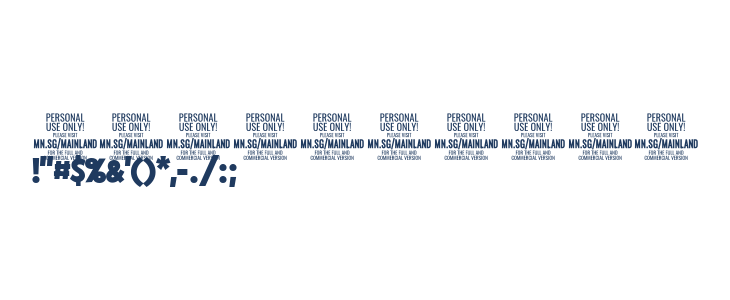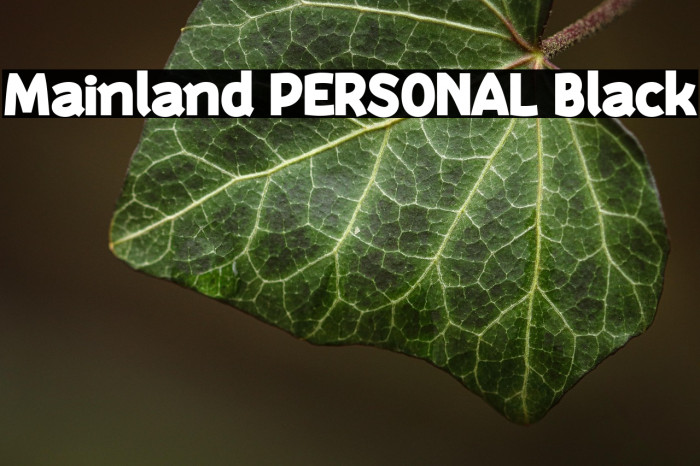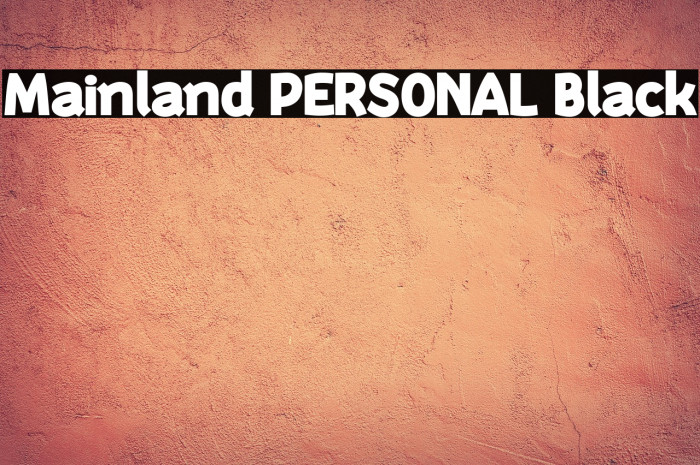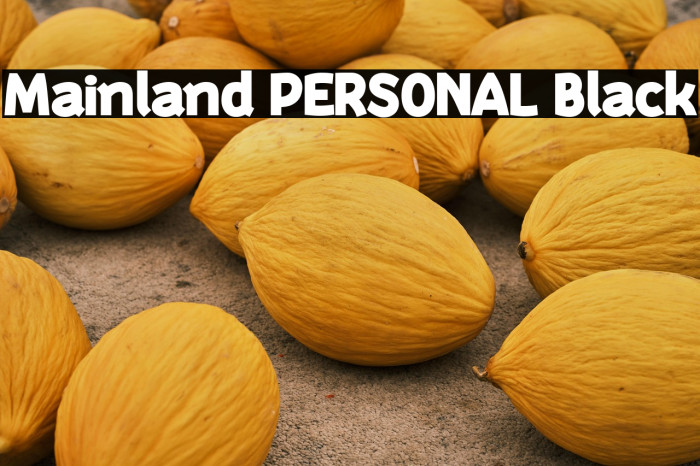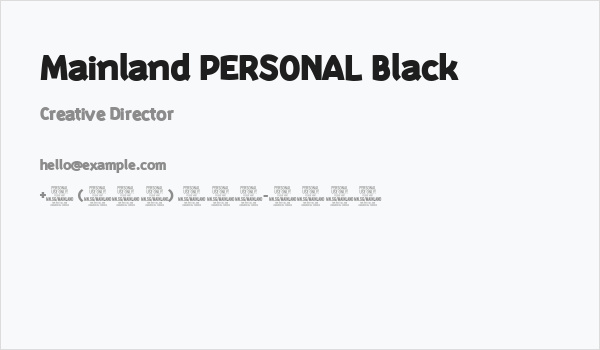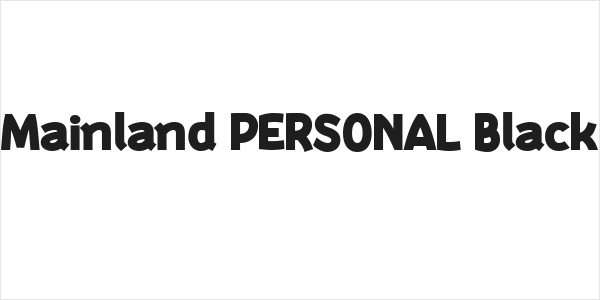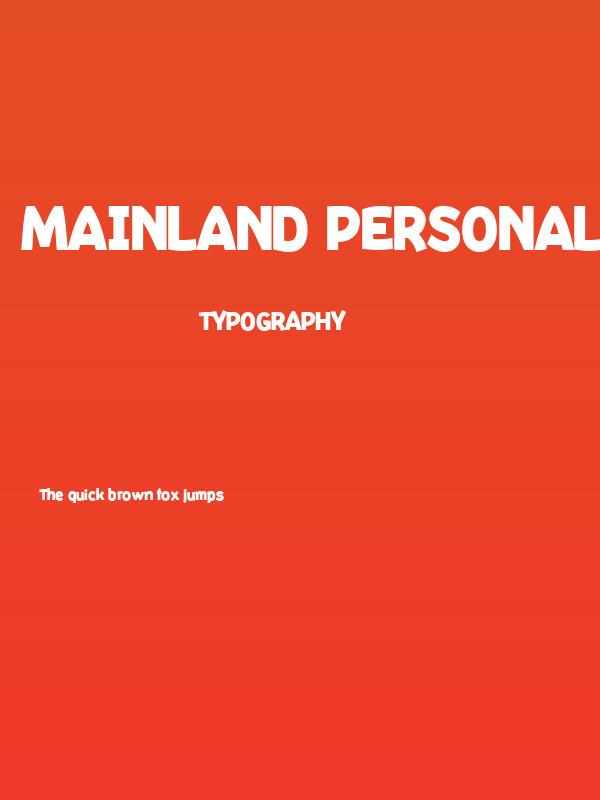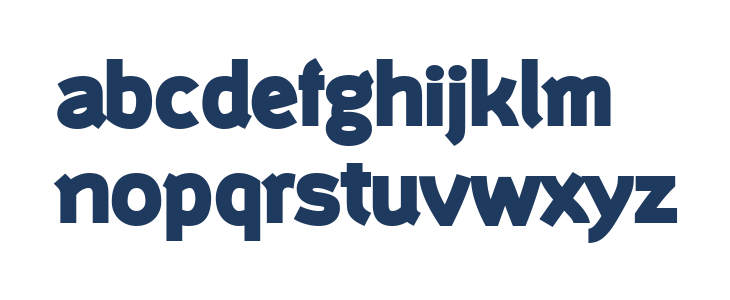
Mainland PERSONAL Black Font
Mainland PERSONAL Black Description
This font features bold, thick strokes with a strong presence, making it ideal for impactful designs. The characters are uniformly wide, with a slightly condensed appearance that enhances readability while maintaining a robust aesthetic. The uppercase and lowercase letters share a consistent style, with rounded edges and a modern flair. The numerals and special characters complement the alphabet with similar weight and design, ensuring cohesive visual appeal across all text elements. This font is perfect for projects that require a bold statement and a contemporary look.
| Proposed Projects | Ideal for branding, posters, headlines, and any design requiring a strong visual impact. |